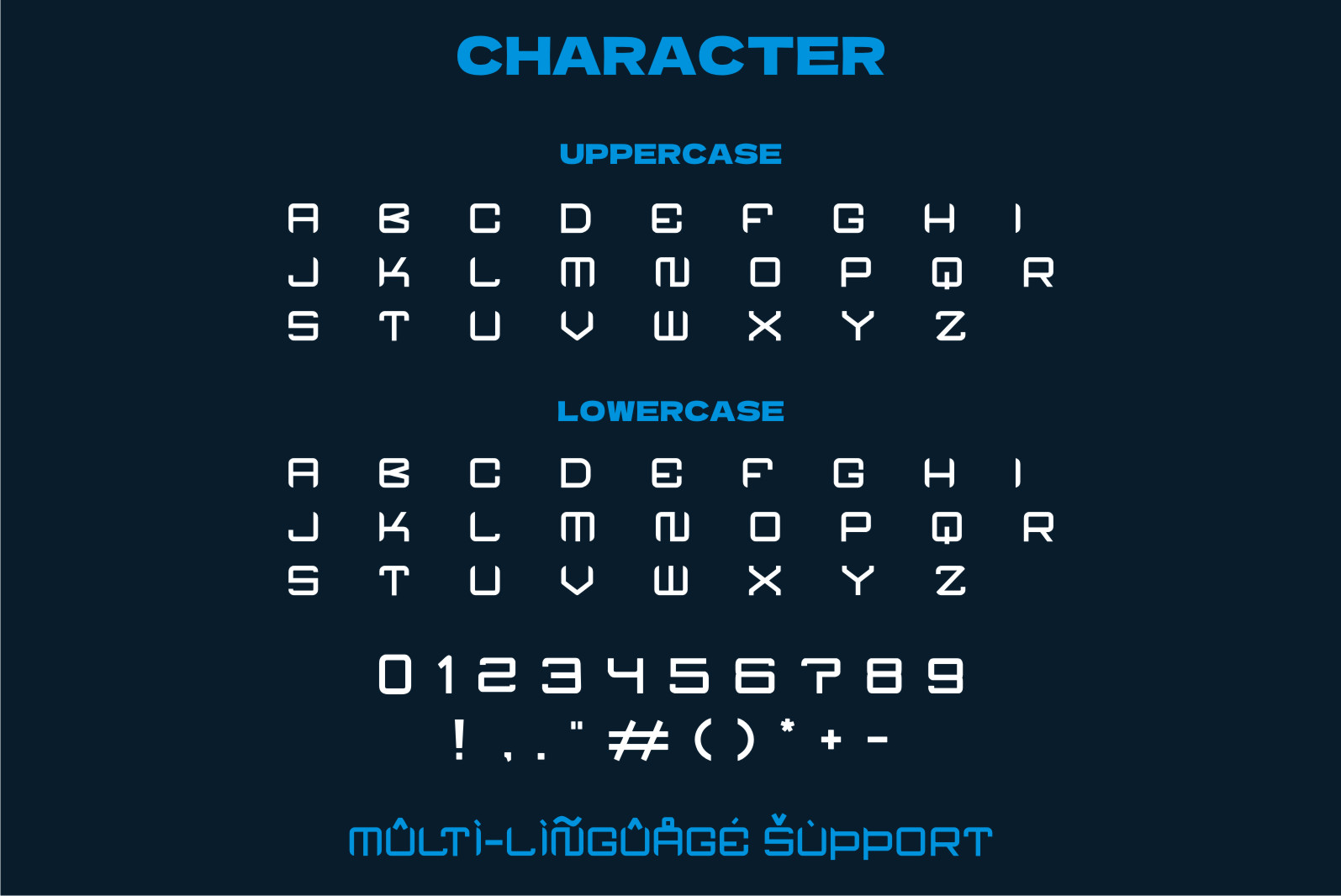
Prolay Font
Prolay Font is a cool and robotic-styled display font. This font is ideal for writing web designs, business cards, or pretty much anything else that requires a futuristic touch.